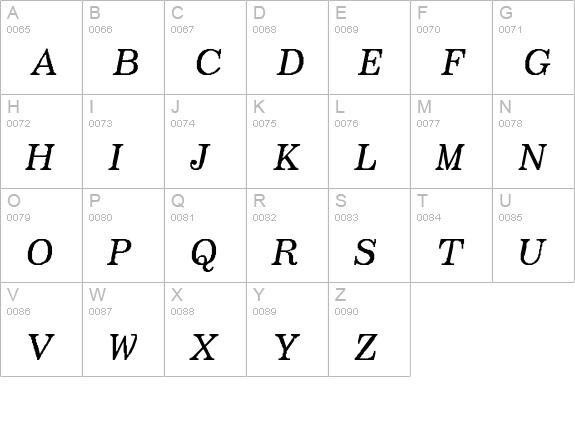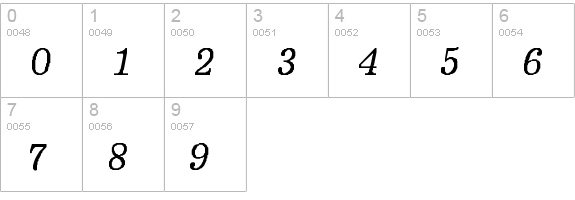
BoldfaceItalic-SemiBold-Italic is a sub-bold, structured, italic variant in the BoldfaceItalic typeface family \xE2\x80\x94 well suited to sub-headlines and emphasised passages.
The BoldfaceItalic-SemiBold-Italic font is a dynamic and eye-catching typeface that combines boldness, elegance, and sophistication. With its unique blend of bold and italic styles, this font exudes a sense of strength and style that is perfect for making a statement in any design project. Whether you're creating a striking logo, designing a sleek website, or crafting a modern print layout, this versatile font is sure to make a lasting impression. Best of all, the BoldfaceItalic-SemiBold-Italic font is available for free download at FontsMarket.com. Simply visit the website to access this stunning font and elevate your designs with its bold and italic charm. Don't miss out on the opportunity to add this stylish and impactful font to your typography collection today!